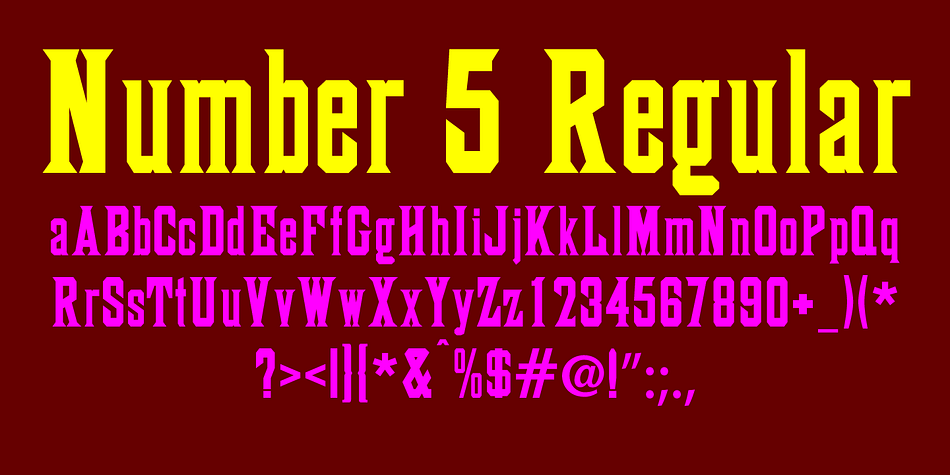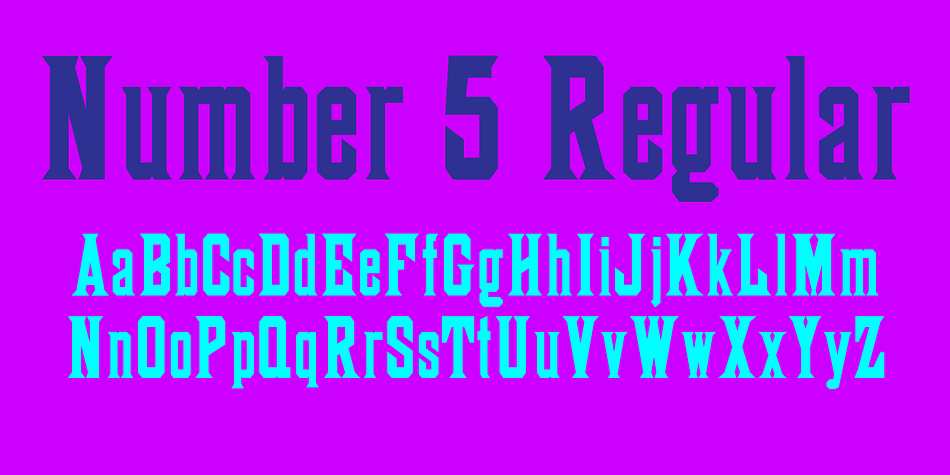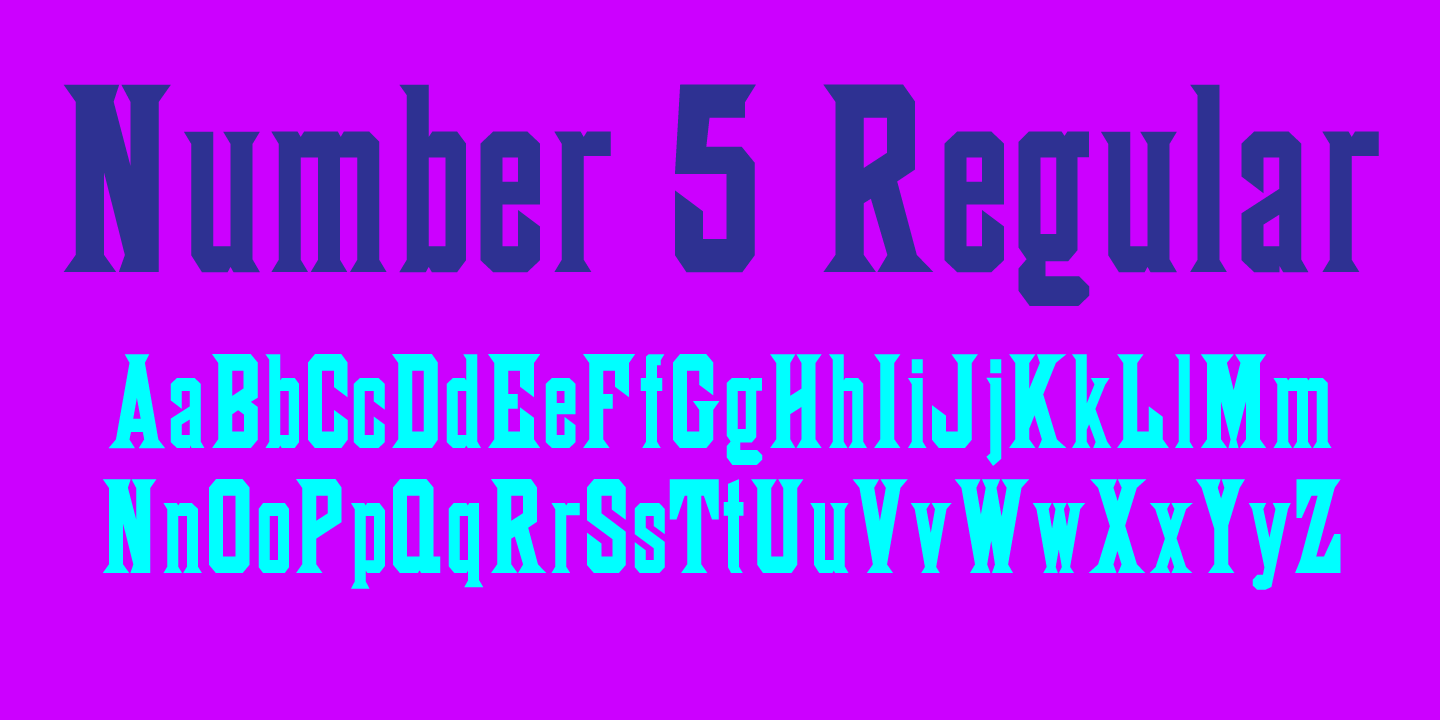
Number5Reg
Designed by Jordan Davies, Number5Reg is a display serif font family published by Wooden Type Fonts.
A design based on wooden type from the late 19th century, with angular serifs, not curved, an excellent font style for display.